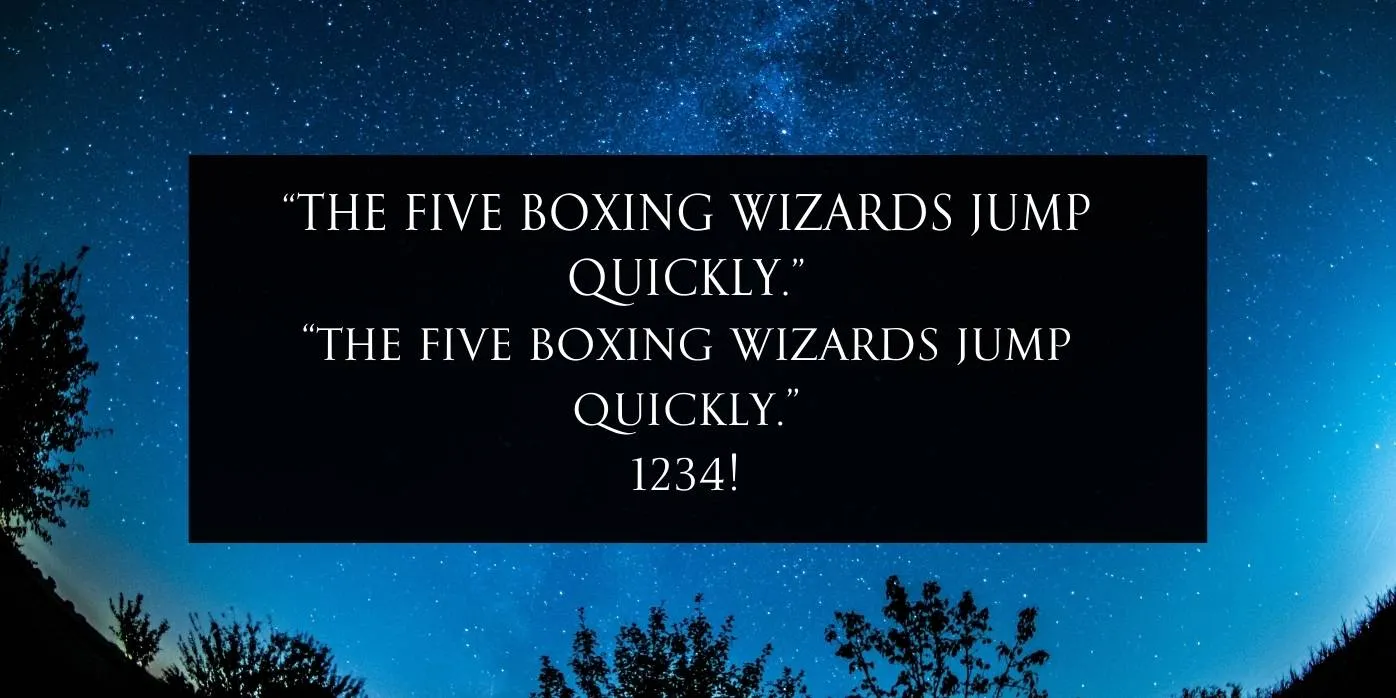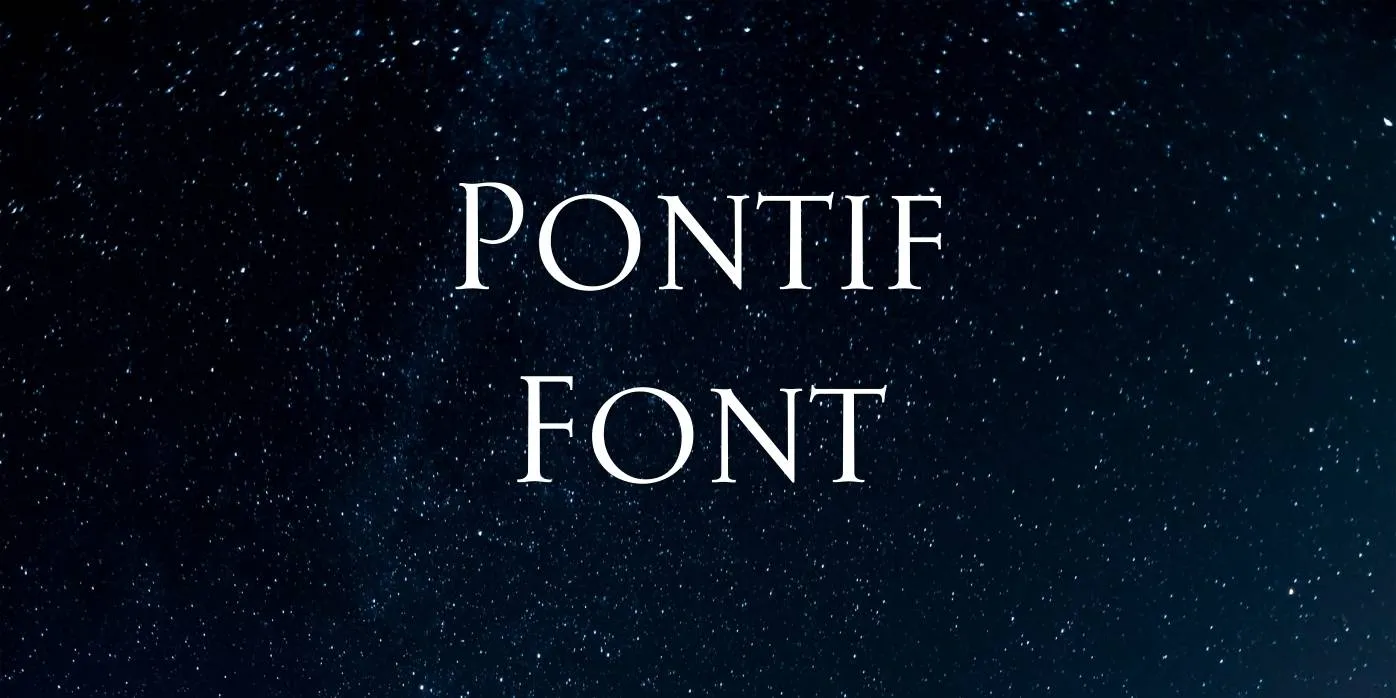
Pontif Font
Pontif Font is a serif typeface created by Carlo Passalacqua in 2013. The name Pontif comes from the Latin word for bridge, which is fitting given the typeface’s construction. This font is a serif typeface with a tall x-height and wide proportions. The typeface has a clean, modern look with subtle details that give it some character.
The terminals of the letters are slightly flared, and the counters are open. This font is available in seven weights, from light to black. This Font was created with both web and print design in mind. The typeface includes a comprehensive character set, including accented characters, ligatures, and fractions.